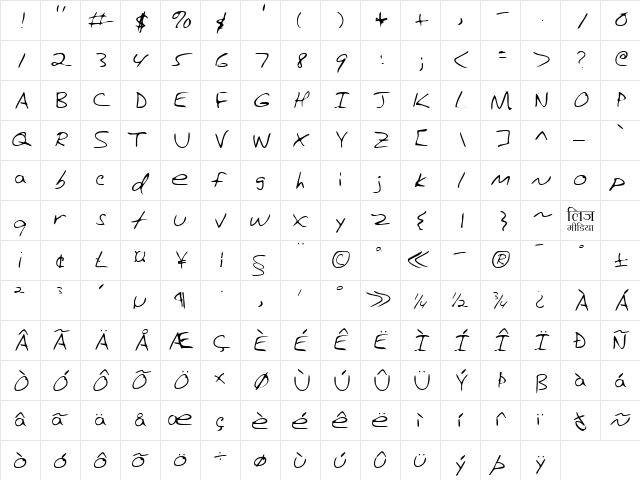
LEHN123 Regular
Design Context for LEHN123 Typeface
LEHN123 is a composed and adaptable typeface that performs quietly and consistently across a wide range of design contexts.